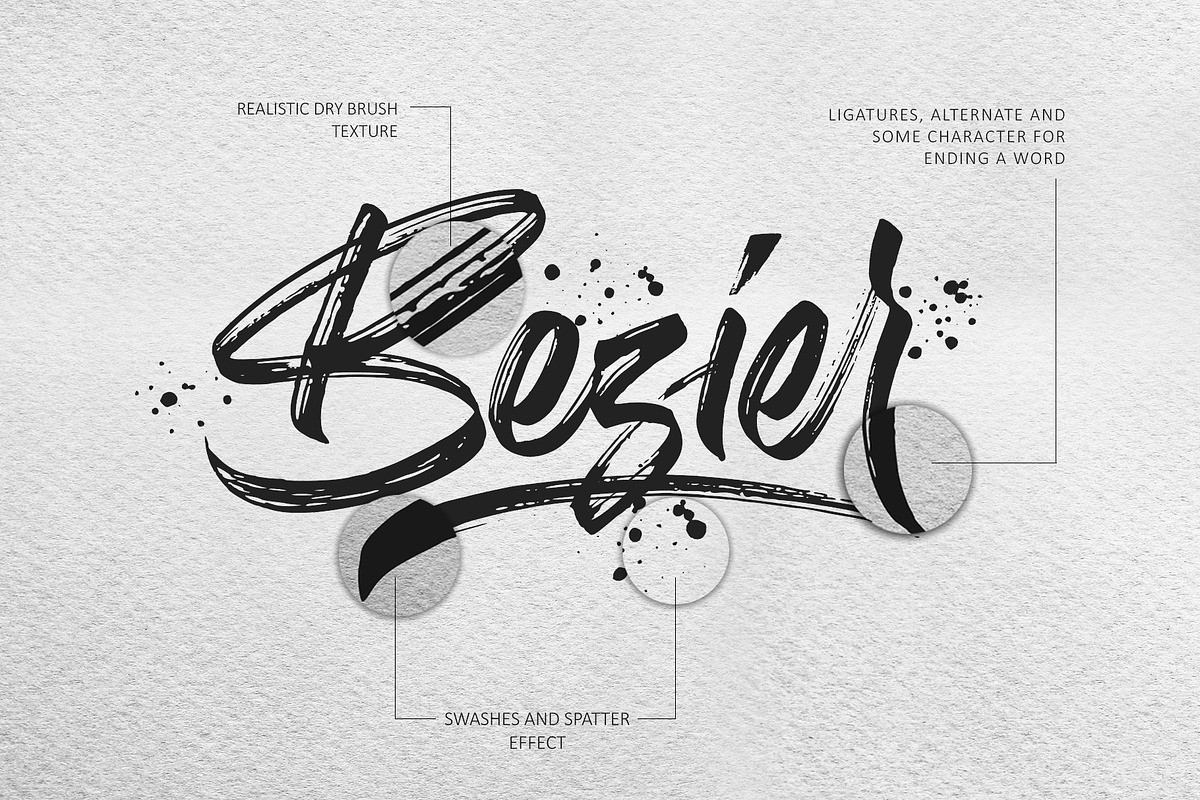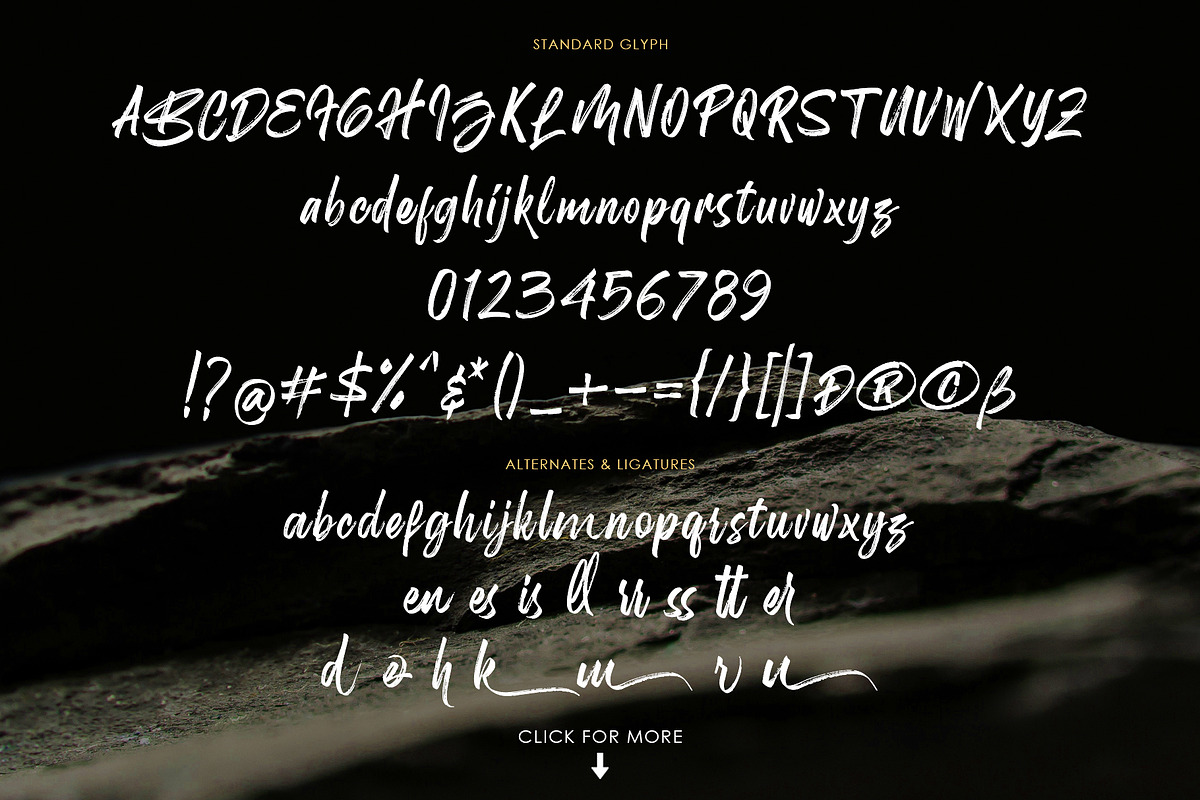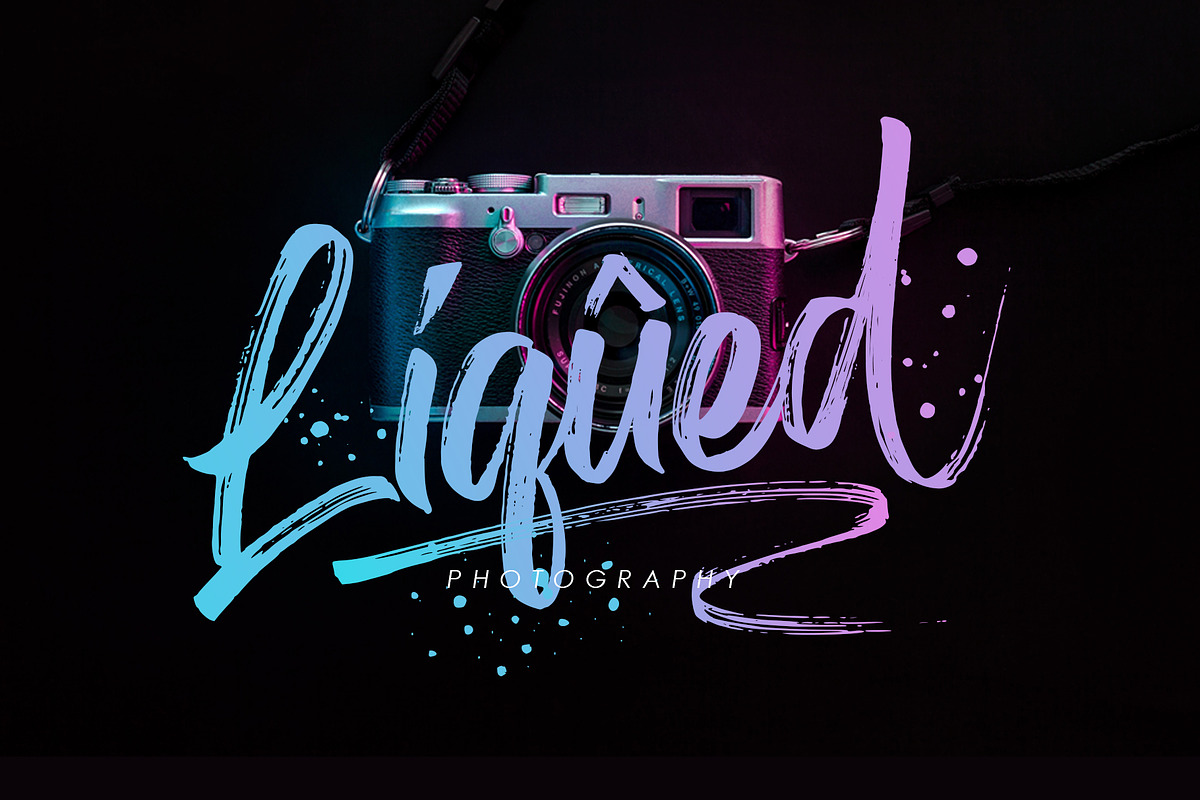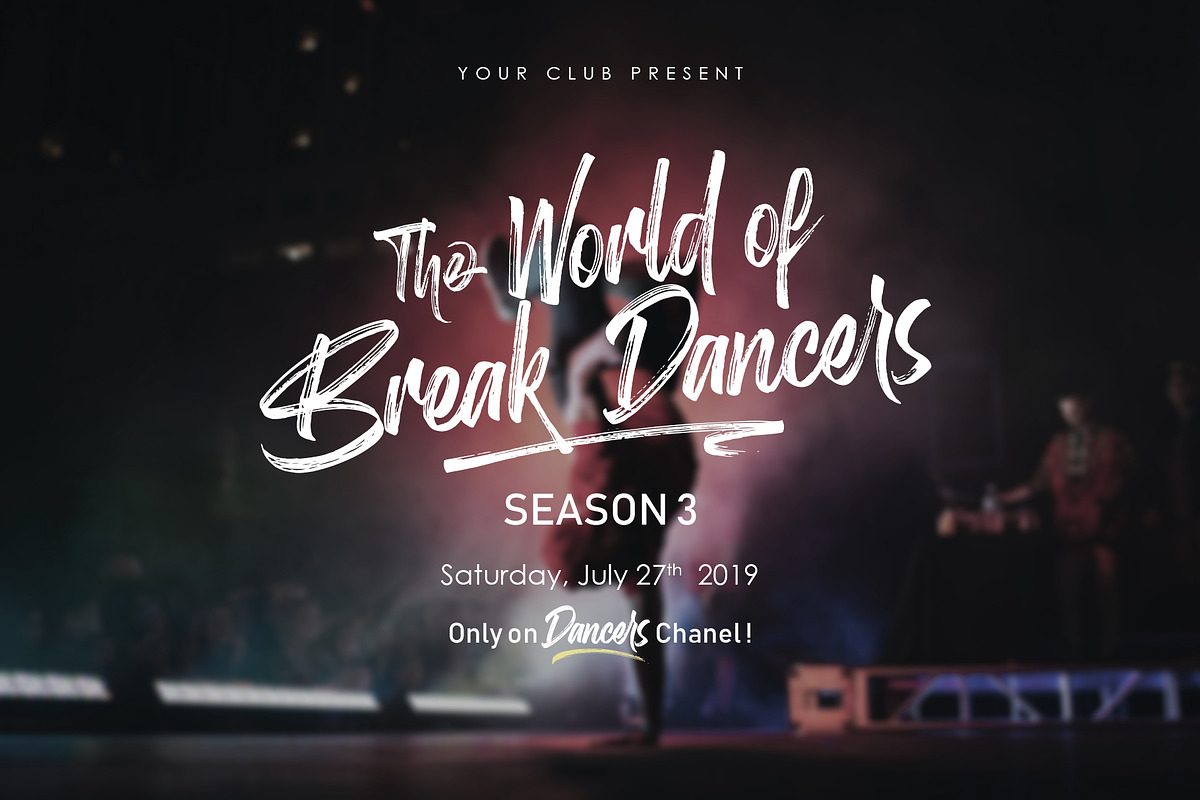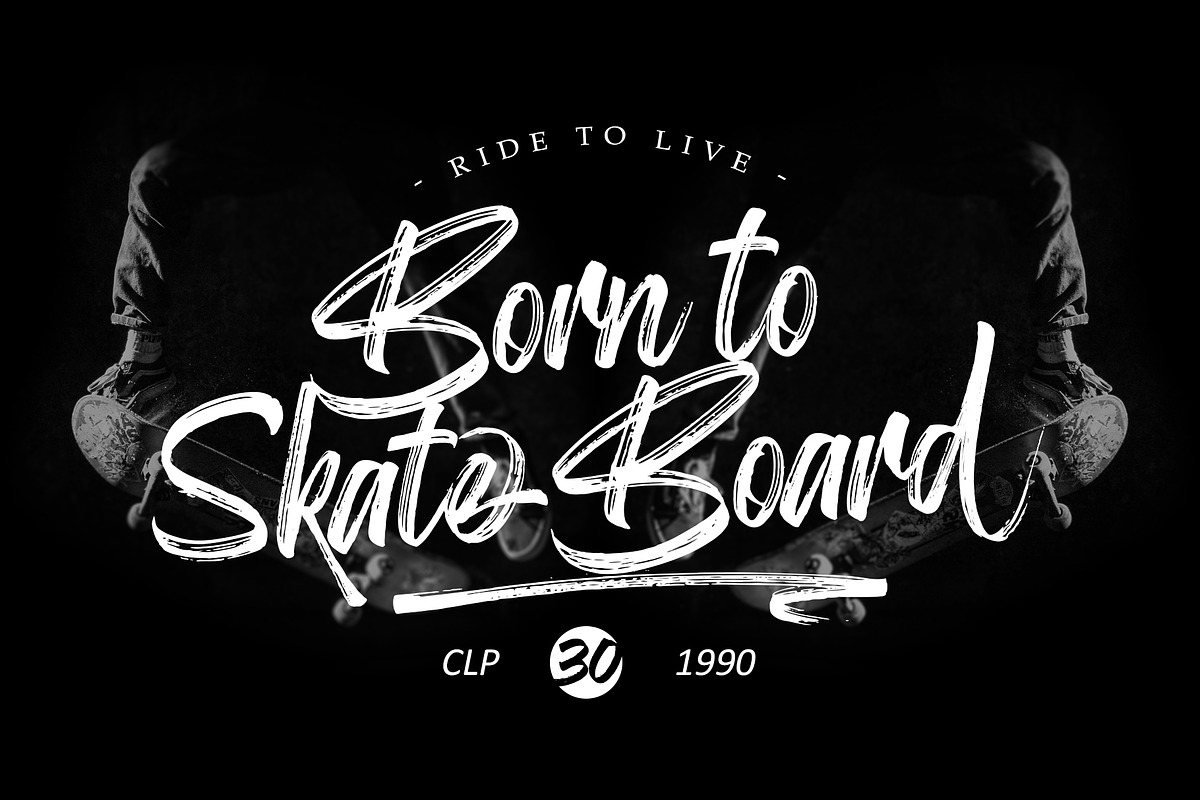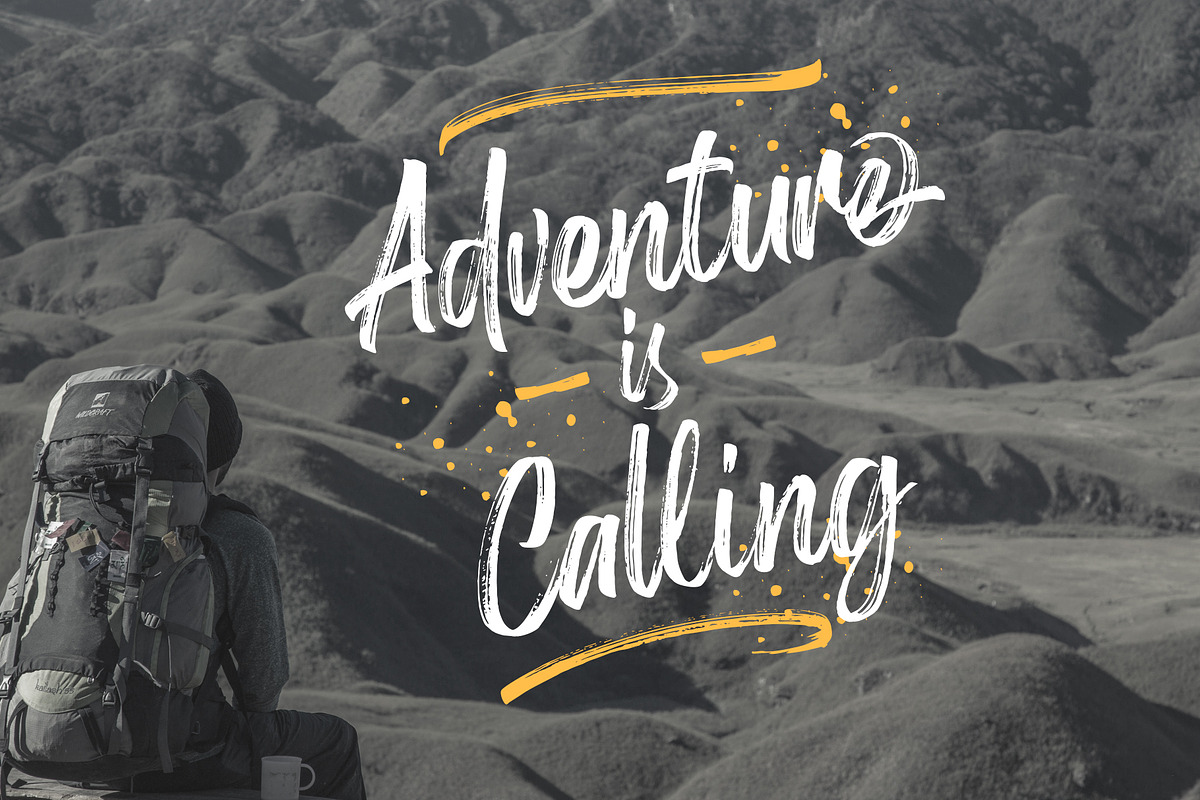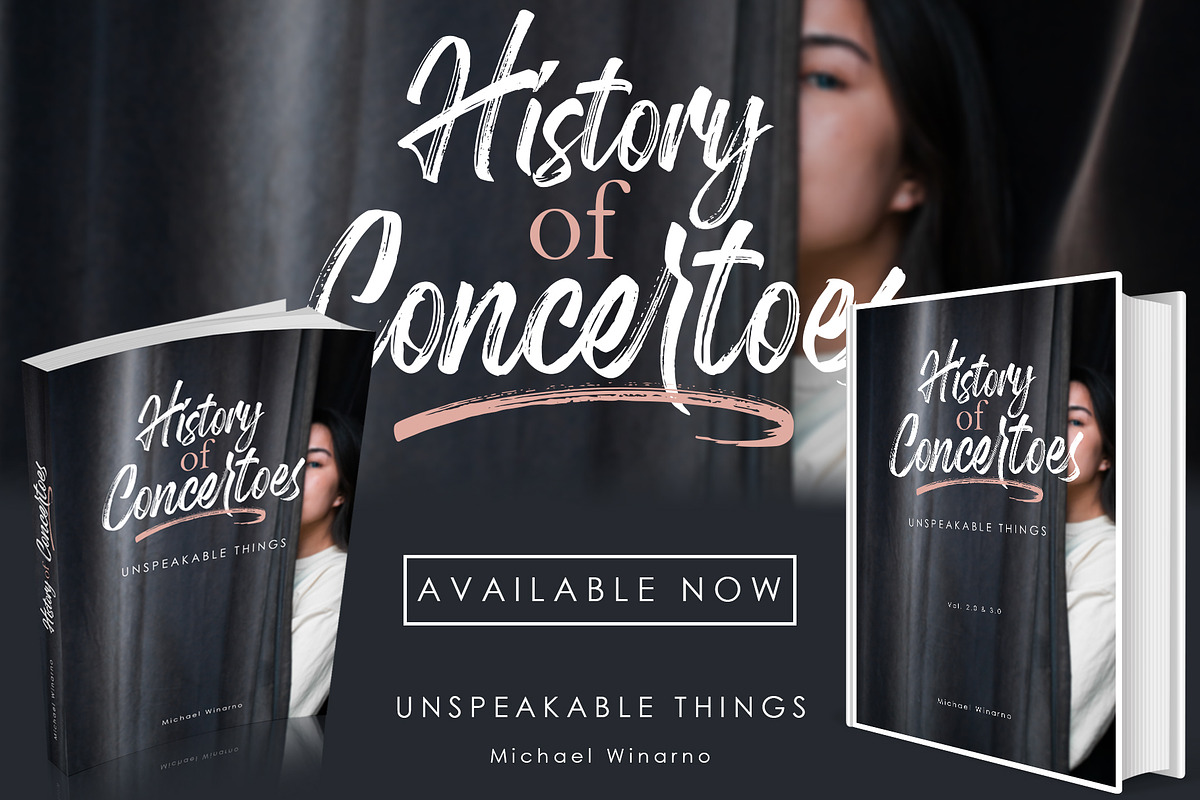
Birdrockers || Realistic Brush Font
Birdrockers is a realistic hand brushed font, with natural authentic brush, and also provided some alternate, ligatures and Swashes Extra. Brand new stylish textured fonts and Make it easy for made logotype Handlettering Style. It will be great for Logotypes, Posters, Digital Lettering Arts, Clean Design, Branding Design, Sign, Merchandise and Social Media Posts.
This font contain of Uppercase, Lowercase, Number, Symbol, Punctuation, also support multilingual and already PUA encoded.